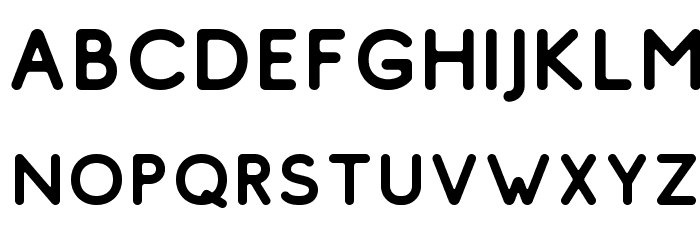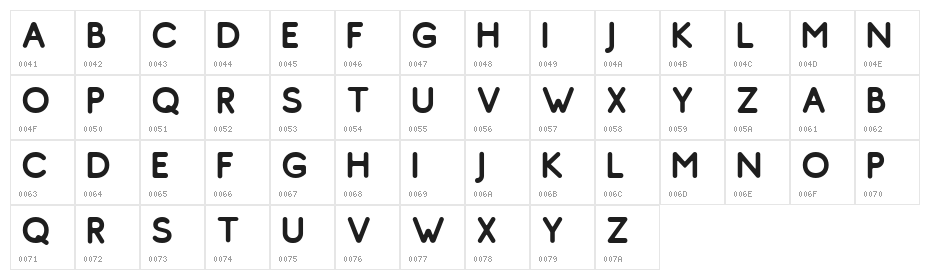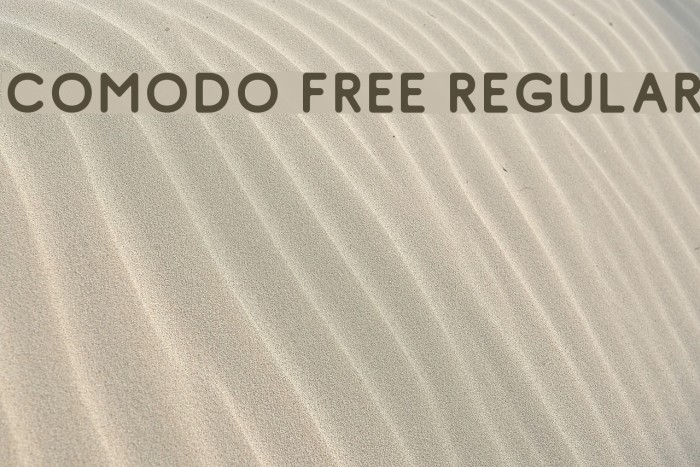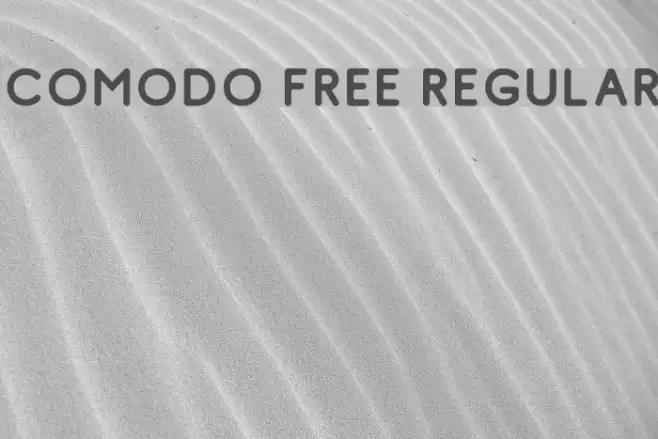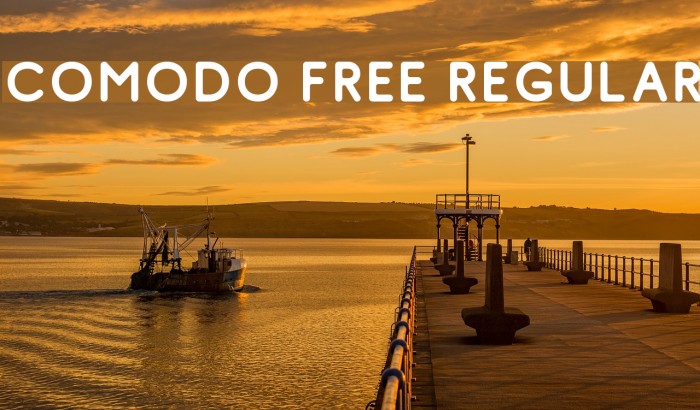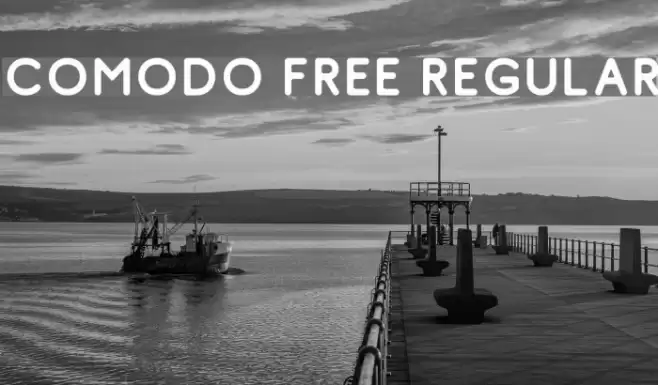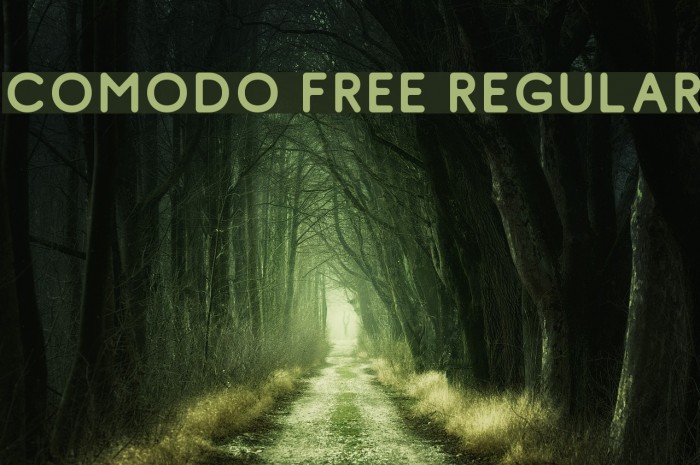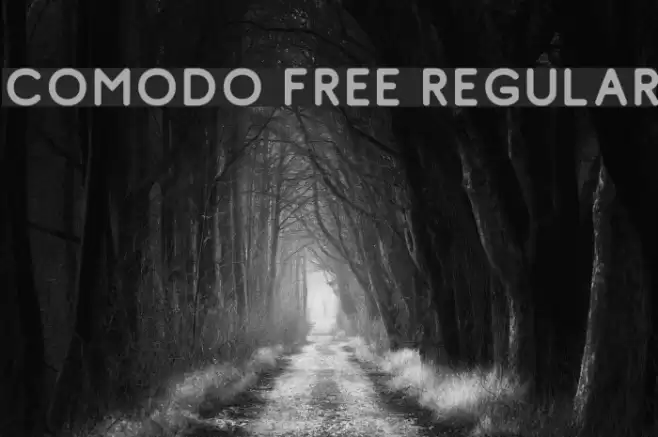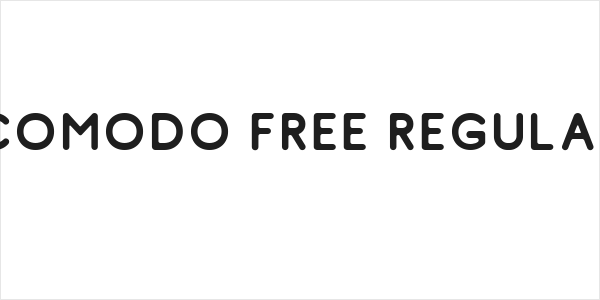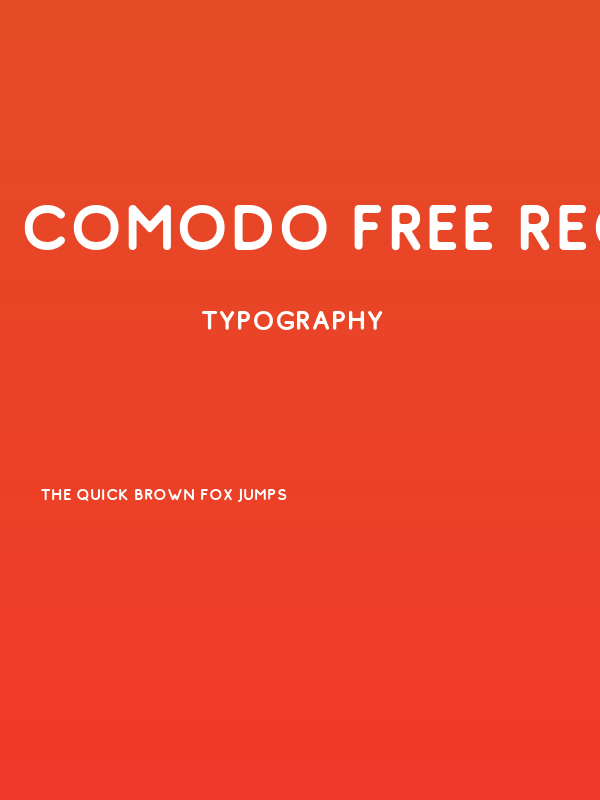
Comodo Free Regular Font
Comodo Free Regular Description
This font features a clean and modern sans-serif style with rounded edges, giving it a friendly and approachable appearance. The uniform stroke width across all characters provides a consistent and balanced look, making it highly legible. The characters are well-proportioned, with a slightly condensed width that allows for efficient use of space without compromising readability. The font's simplicity and clarity make it versatile for various design applications, from digital interfaces to print media.
| Proposed Projects | Ideal for branding, web design, user interfaces, and print materials where clarity and modernity are essential. |